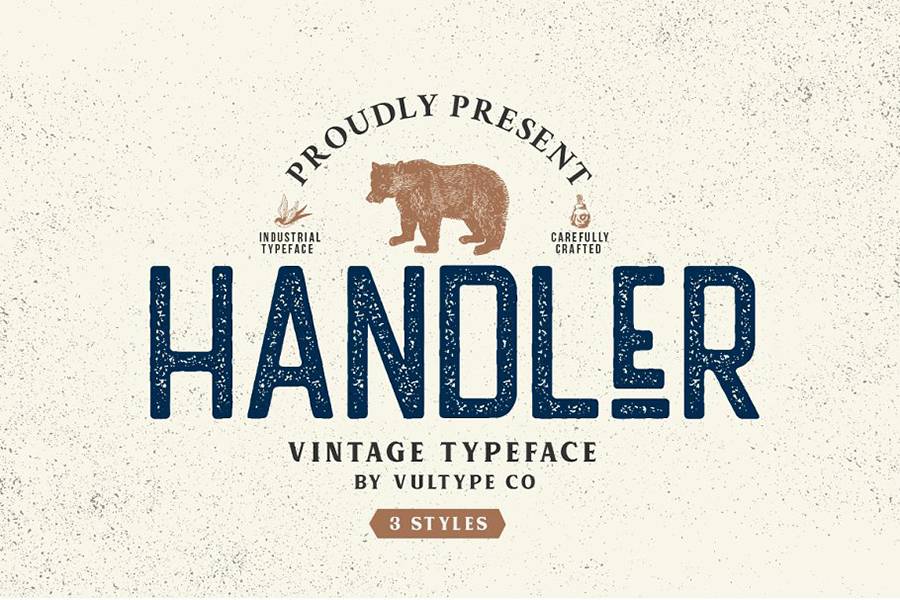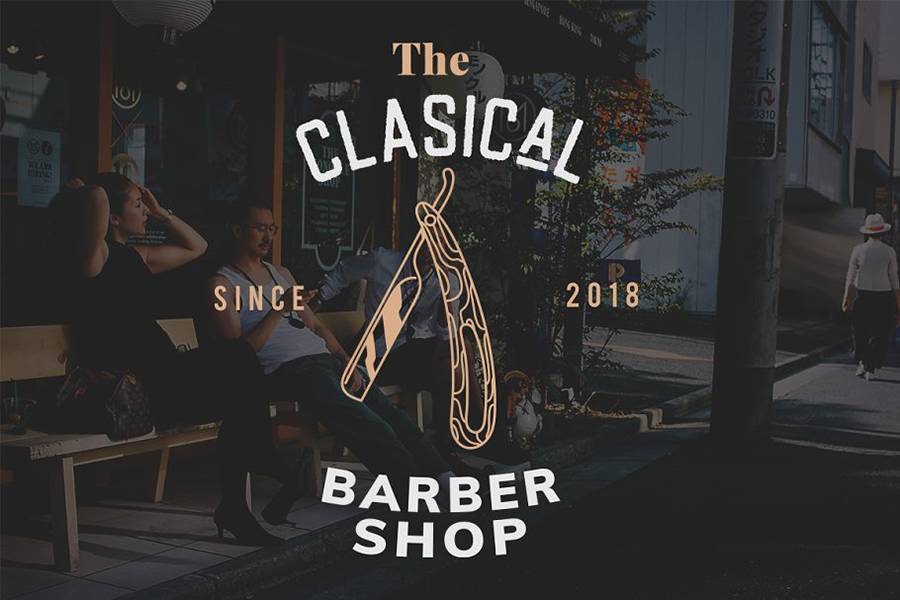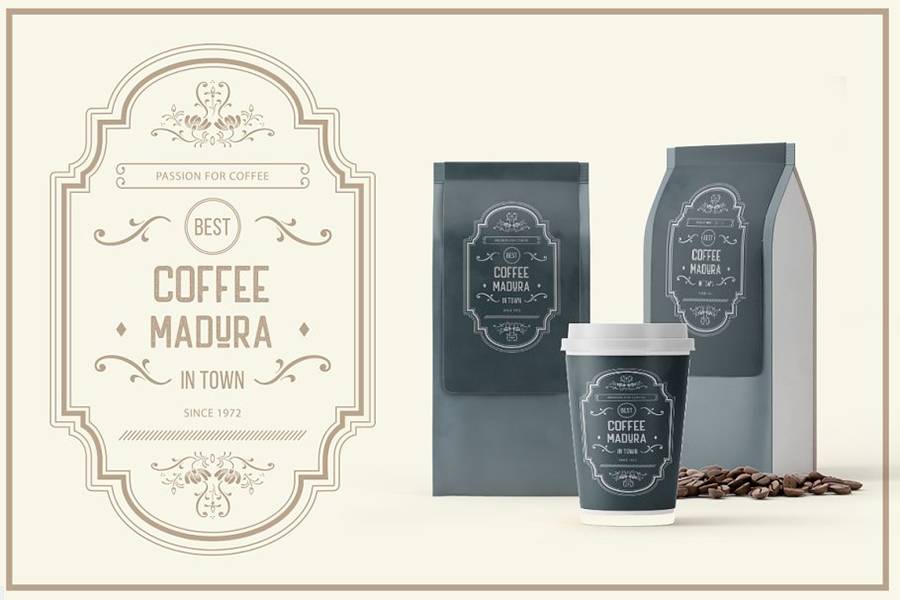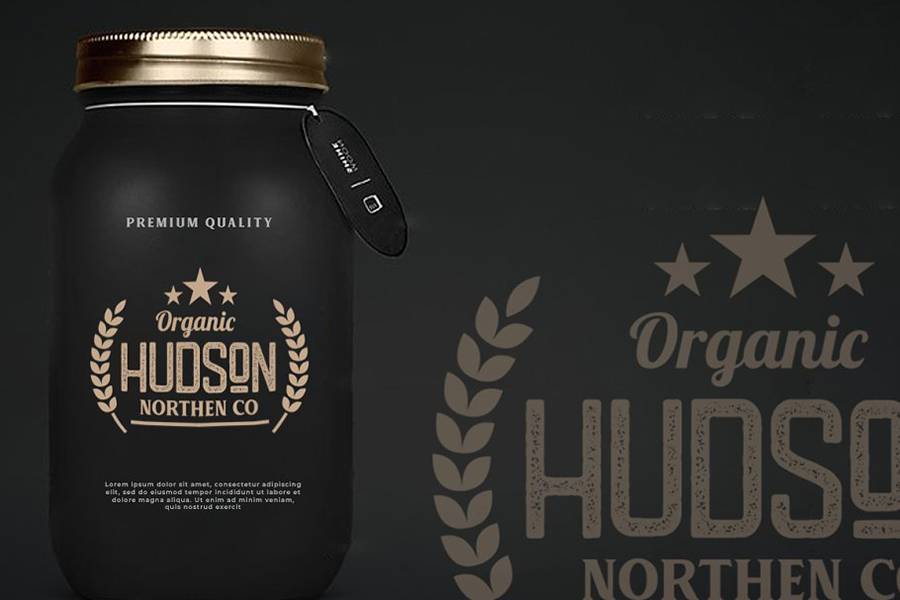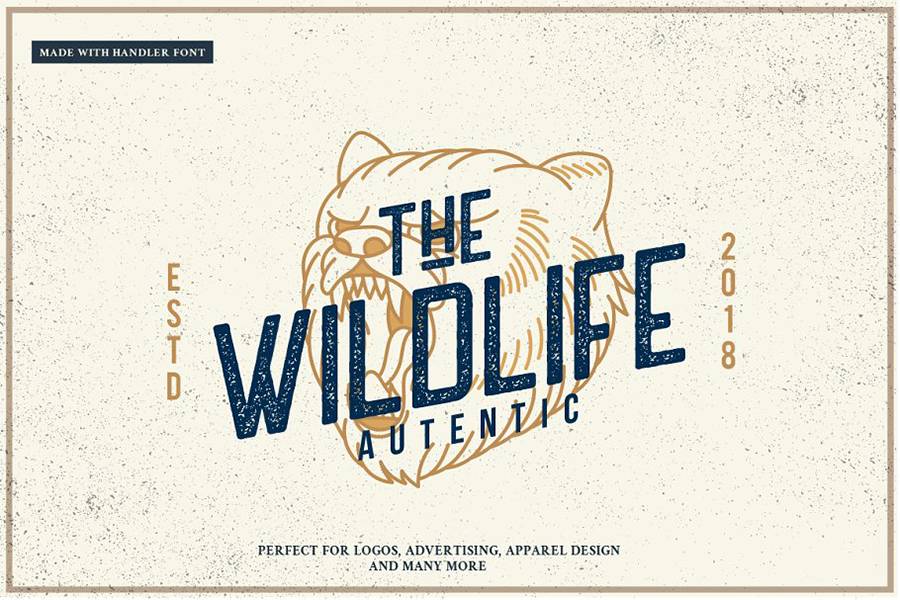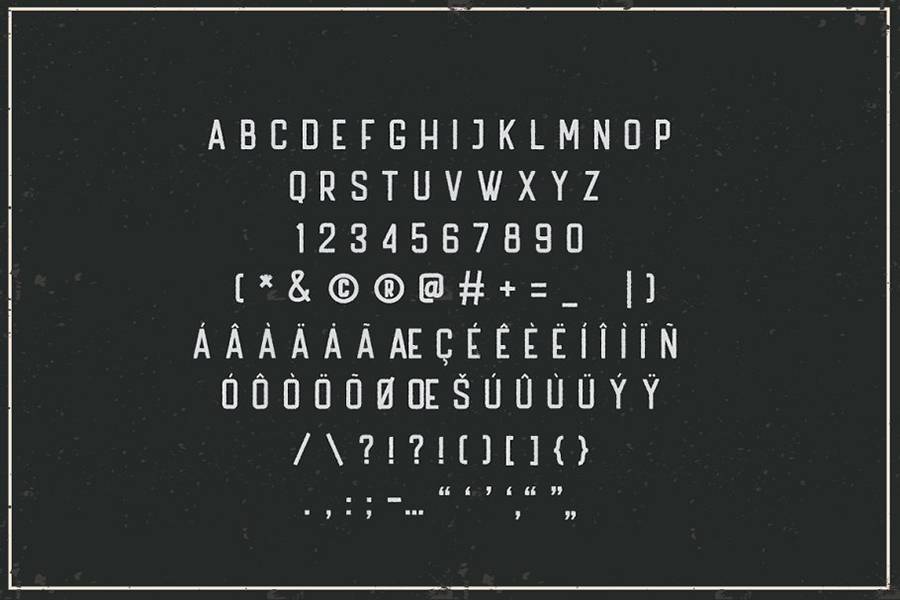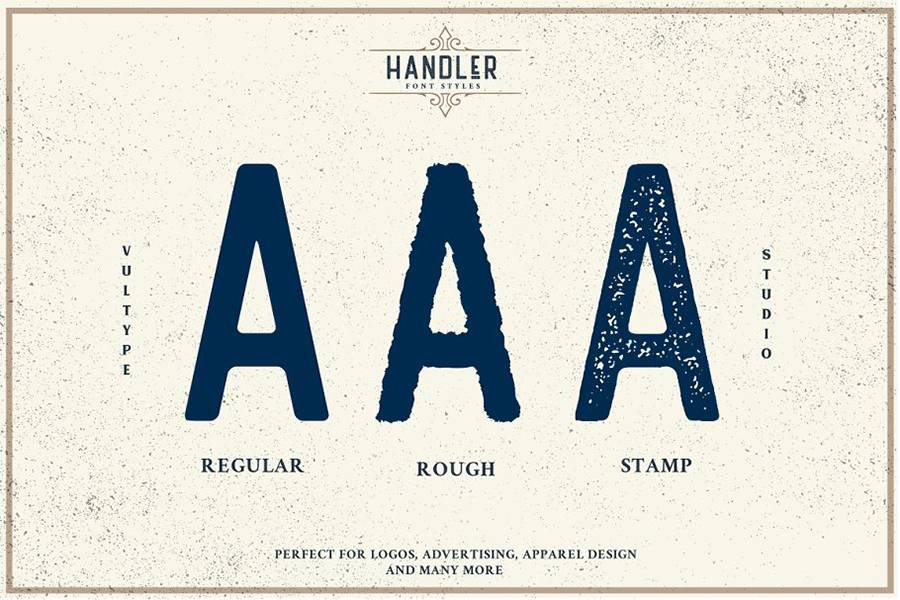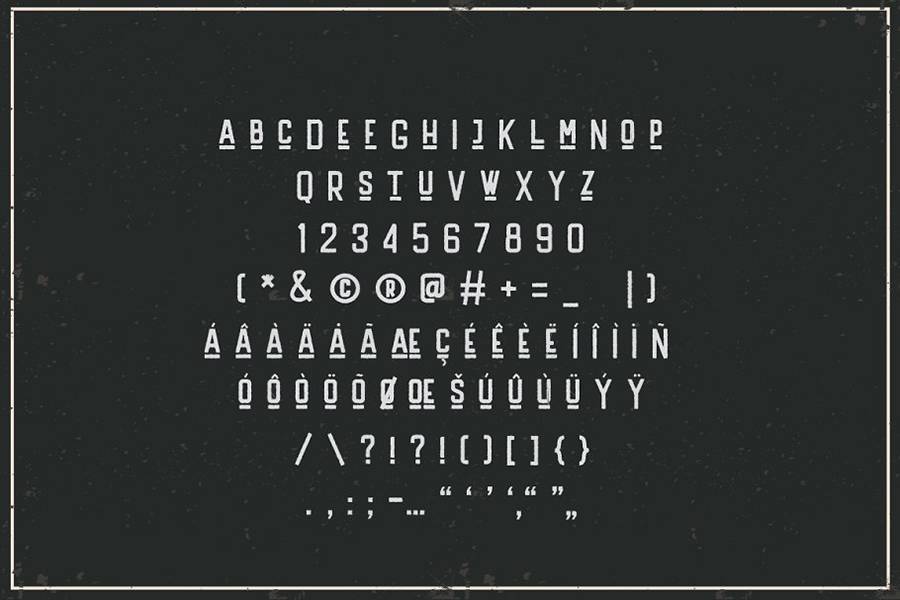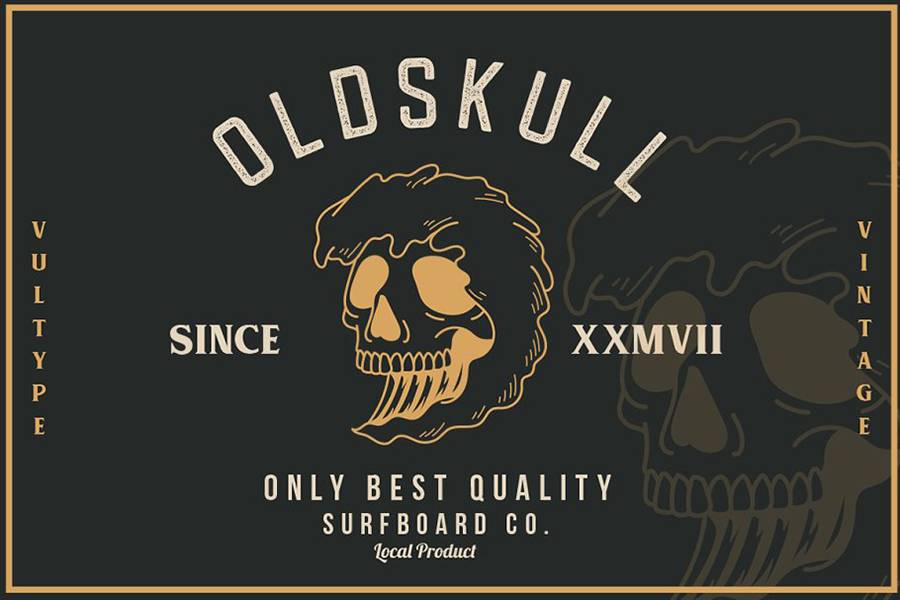
Handler Vintage Sans Serif is a tall, condensed sans serif with a vintage feel, featuring clean, bold lines and slightly rounded corners that add warmth and character. Its strong, consistent stroke weight and narrow spacing make it ideal for impactful headlines, branding, and signage where a modern yet retro look is desired. This font blends classic style with contemporary clarity, making it perfect for projects seeking a bold, memorable statement.
Handler Vintage Sans Serif
About Handler Vintage Sans Serif
| Font family | Handler Vintage Sans Serif |
| Release date | 2019-04-13 |
| Designer | Vultype Co |